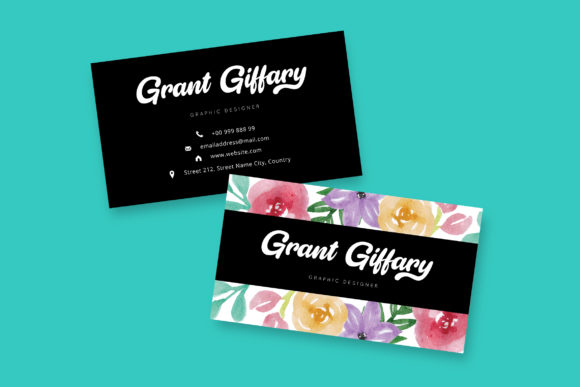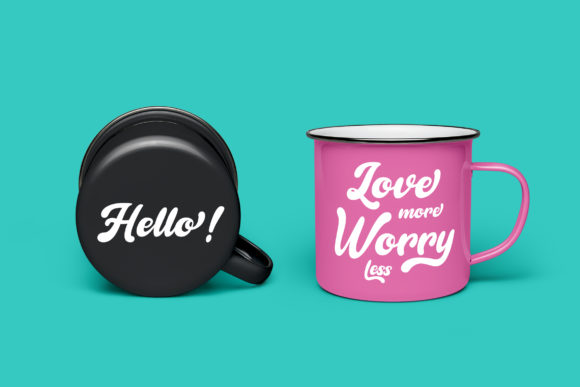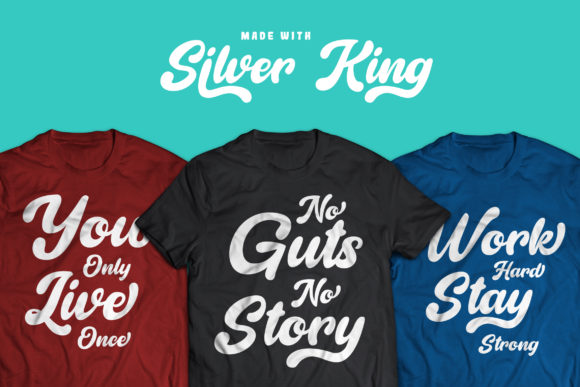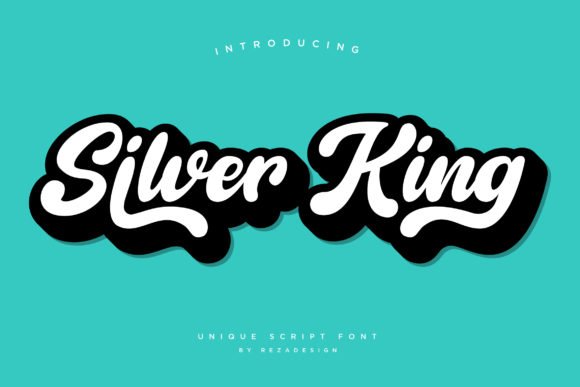
Introduction to Silver King Font
Silver King is a fun and bold handwritten font, full of authentic charm.
It will add a personal charm to any design project .
Key Features of Silver King Font
Why Choose Silver King Font?
Silver King Font offers exceptional quality and versatility, making it a valuable addition to your design toolkit. Whether you’re creating for personal projects or commercial use, Silver King Font delivers professional results.